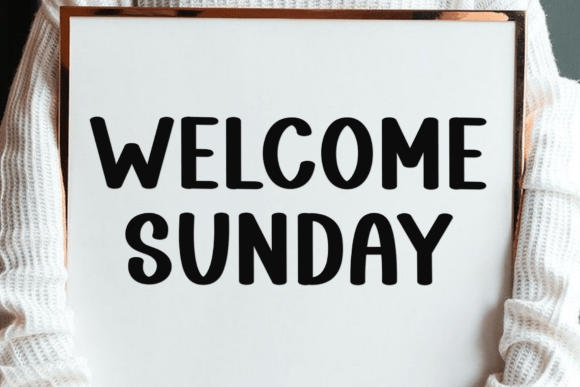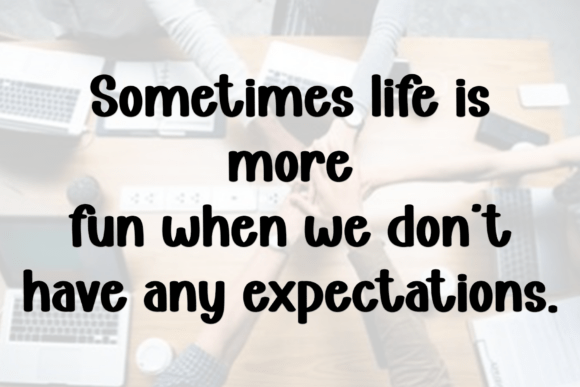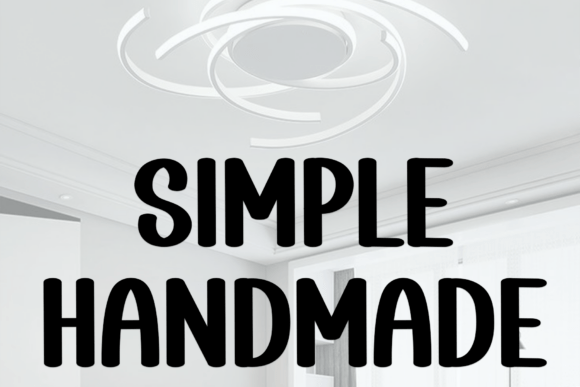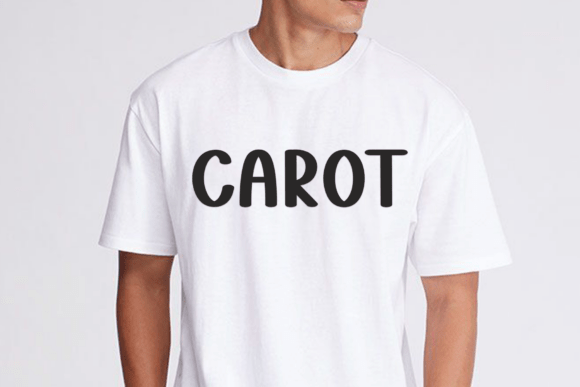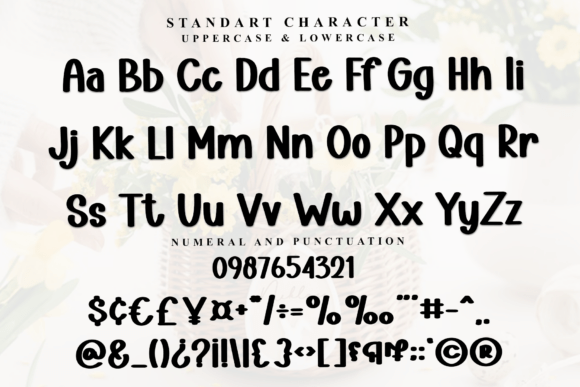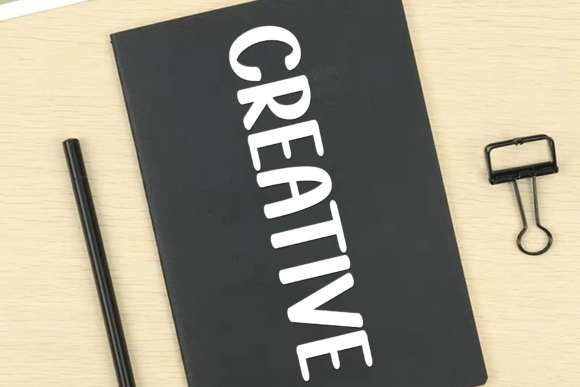
Discover the Charm of Grinces Today Font: Elevate Your Designs with a Unique Touch
In the world of typography, fonts play a crucial role in conveying messages, evoking emotions, and adding personality to designs. Among the myriad of fonts available, Grinces Today stands out with its soft, unique touch and distinctive strokes, making it a versatile and meaningful choice for various creative projects. In this article, we’ll explore the features, benefits, and applications of Grinces Today Font, and why it’s becoming a favorite among designers and crafters.
The Unique Character of Grinces Today Font
Grinces Today Font is designed with a special character that sets it apart from more traditional fonts. Its soft and unique touch gives it a friendly and approachable feel, making it perfect for designs that require a personal and creative flair. The font’s distinctive strokes add a level of sophistication and elegance, allowing it to be used in a wide range of applications, from crafts and DIY projects to professional design works.
Key Features of Grinces Today Font
- Unique and Eye-Catching Design: Grinces Today Font boasts a beautiful and eye-catching design that is sure to capture the attention of your audience.
- Versatile and Meaningful: The font’s distinctive strokes and soft touch make it a versatile and meaningful choice for various creative projects.
- Various Characters: Grinces Today Font comes with a range of characters, making it perfect for design projects, crafts, and other creative works.
Applications of Grinces Today Font
Grinces Today Font is an excellent choice for a wide range of creative projects, including:
- Design Projects: Use Grinces Today Font to add a unique touch to your designs, making them stand out and appeal to a wider audience.
- Crafts and DIY Projects: The font’s friendly and approachable feel makes it perfect for crafts and DIY projects, such as handmade cards, invitations, and decorations.
- Digital Art and Illustrations: Grinces Today Font can be used to add a personal and creative flair to digital art and illustrations.
Benefits of Using Grinces Today Font
By incorporating Grinces Today Font into your designs, you can:
- Enhance Your Designs: The font’s unique and eye-catching design will elevate your designs, making them more appealing to your audience.
- Stand Out from the Crowd: Grinces Today Font’s distinctive strokes and soft touch will set your designs apart from others, making them more memorable and impactful.
- Increase Engagement: The font’s friendly and approachable feel will engage your audience, encouraging them to interact with your designs and explore your creative works.
Grinces Today Font is a beautiful and versatile font that offers a unique touch to various creative projects. Its distinctive strokes, soft touch, and wide compatibility make it an excellent choice for designers, crafters, and artists. By incorporating Grinces Today Font into your designs, you can enhance your creative works, stand out from the crowd, and engage your audience. Discover the charm of Grinces Today Font and elevate your designs to the next level.